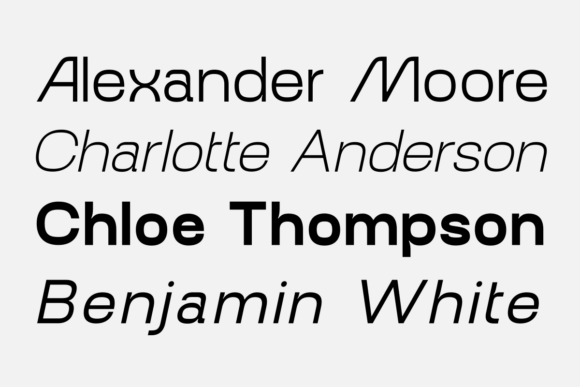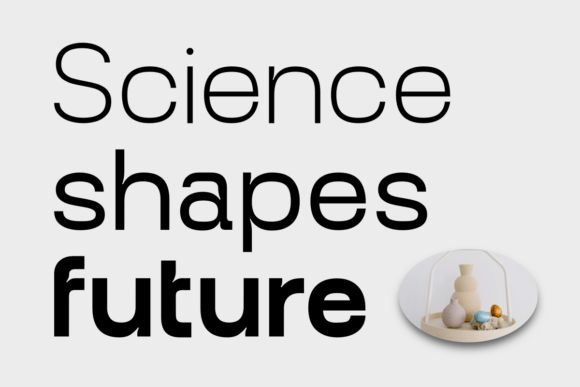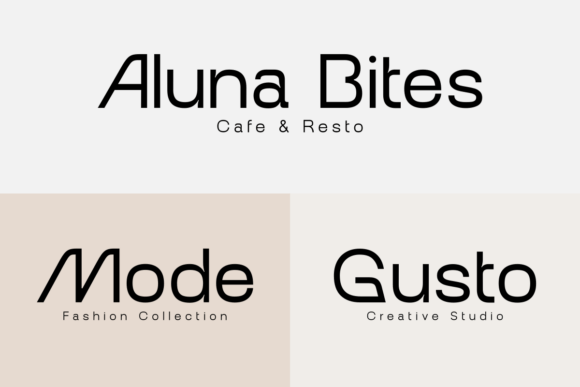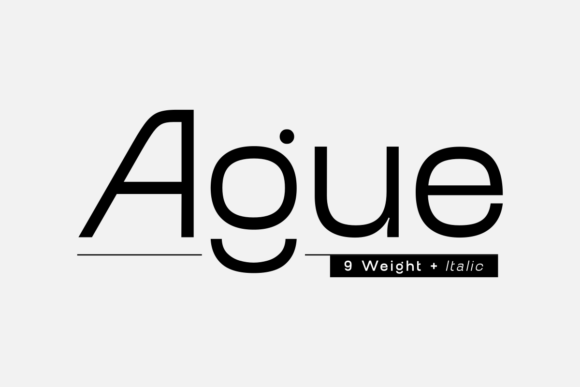
The Ague Font: Elevating Design with Sleek Sophistication
I’ll never forget the design struggle I faced while working on a branding project for a trendy new coffee shop. My client wanted a font that exuded modernity, elegance, and a dash of playfulness. I scoured the internet, tried out numerous typefaces, but none seemed to hit the sweet spot. That was until I stumbled upon Ague, a sleek sans serif typeface family that instantly resonated with my design sensibilities. In this article, I’ll share my experience with Ague, its features, and how to make the most of this versatile font.
First Impressions: What I Love About Ague
Ague is a masterclass in typographic design, boasting a range of features that make it an excellent addition to any designer’s toolkit. Here are some aspects that I particularly love:
- ✨ Versatility: With 9 progressive weights, ranging from ‘Thin’ to ‘Black’, each with an accompanying italic variant, Ague offers unparalleled typographic adaptability.
- ✅ Clean Lines: The font’s razor-sharp contours, paired with pared-down details, create a sense of sophistication and clarity.
- 💡 Legibility: Ague’s equilibrium of proportions ensures that it remains legible, even at smaller sizes, making it perfect for a wide range of design applications.
A Few Quirks to Consider
While Ague is an exceptional font, there are a few minor limitations to be aware of:
- 🤔 Limited Extensibility: Ague’s design is intentionally focused on a specific aesthetic, which might limit its use in projects requiring a drastically different look.
- ⚠️ Glyph Limitations: While Ague includes a wide range of glyphs, it might not have every special character or symbol you need for a specific project.
If you’re looking for fonts similar to Ague, consider the following options:
- Montserrat: A geometric sans serif font with a similar urban feel, ideal for branding and digital applications.
- Inter: A contemporary sans serif font designed specifically for digital interfaces, offering a similar balance of elegance and legibility.
- Akzidenz-Grotesk: A classic sans serif font with a similar minimalist aesthetic, suitable for editorial and corporate design projects.
- Helvetica: A timeless sans serif font with a similar versatility, often used in branding, advertising, and editorial design.
The Story Behind Ague
Ague’s design inspiration stems from the need for a modern, adaptable typeface that could seamlessly transition across various design genres. Its creator aimed to craft a font that embodied the perfect balance of sophistication, legibility, and visual appeal. By combining clean lines, precise geometry, and a range of weights, Ague was born – a font designed to elevate design projects with its unique blend of elegance and versatility.
Here are some common questions about Ague:
- Q: What is Ague’s primary design style?
- A: Ague is a sleek sans serif typeface family with a contemporary flourish.
- Q: How many weights does Ague have?
- A: Ague includes 9 progressive weights, ranging from ‘Thin’ to ‘Black’, each with an accompanying italic variant.
- Q: Can Ague be used for body text?
- A: Yes, Ague’s clean lines and balanced proportions make it suitable for body text in various design applications.
- Q: Is Ague suitable for digital interfaces?
- A: Absolutely! Ague’s legibility and adaptability make it an excellent choice for user interface/user experience design and digital applications.